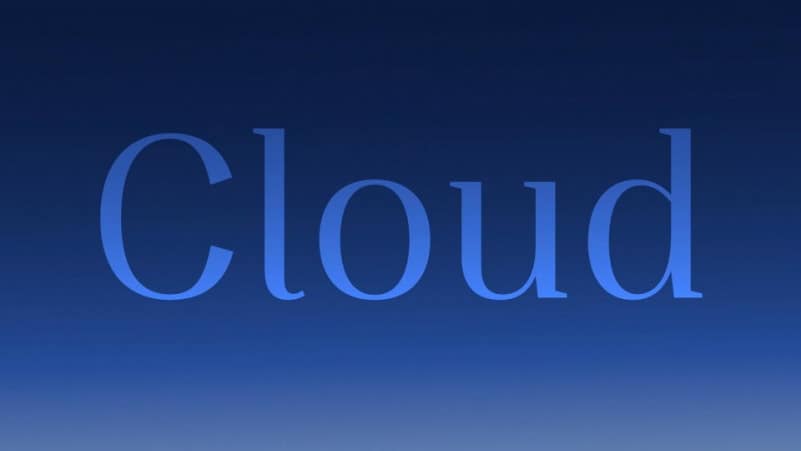
Cloud Serif Font Free
Cloud Serif Font is a sharp serif With unique & sharp shape, this font will make your poster more stand out! You also can use this font for any design because of the versatility in this font. It’s designed and shared by Typomancer.
A free serif font with a sleek personality. The complete typeface includes Regular and Bold weights with matched Italics, supports Latin and Thai languages. The typeface is a great for make your designs stand out!